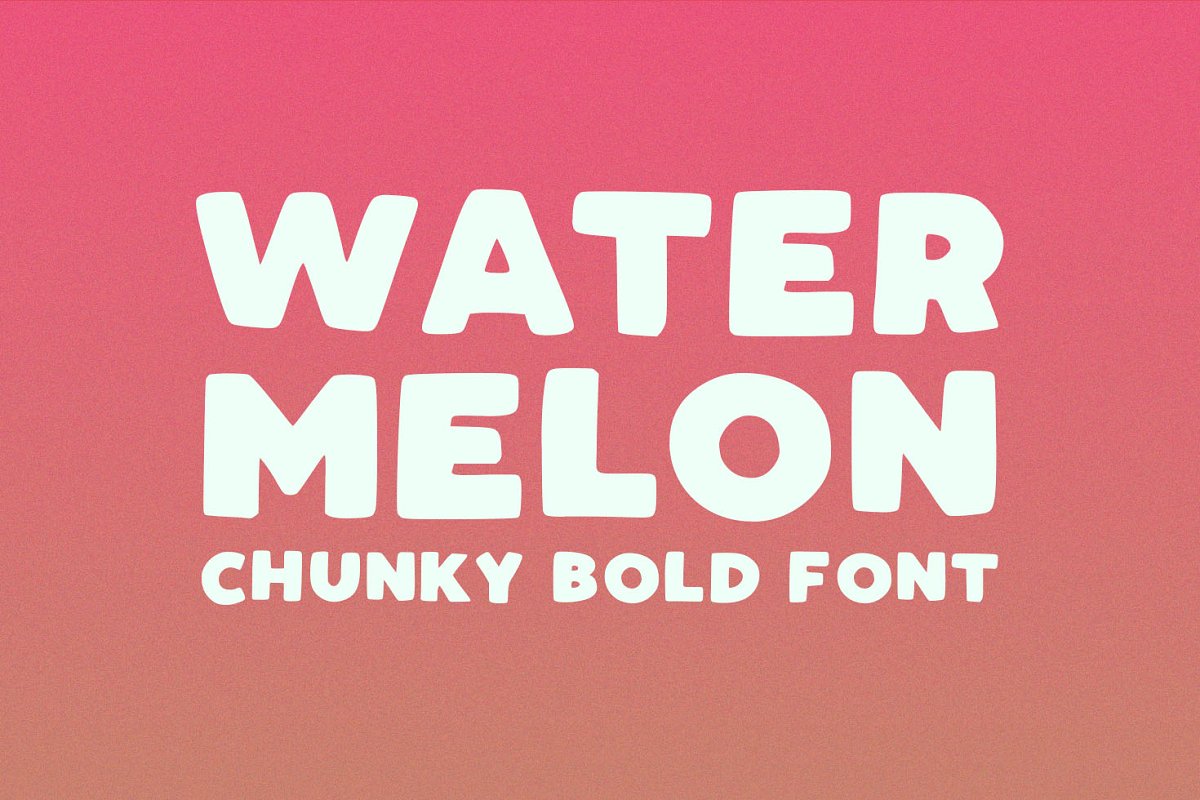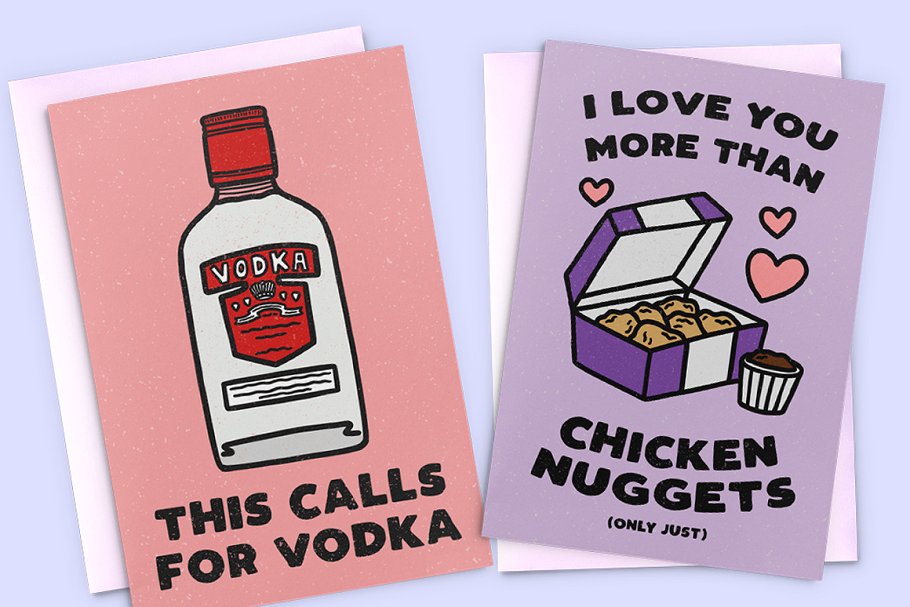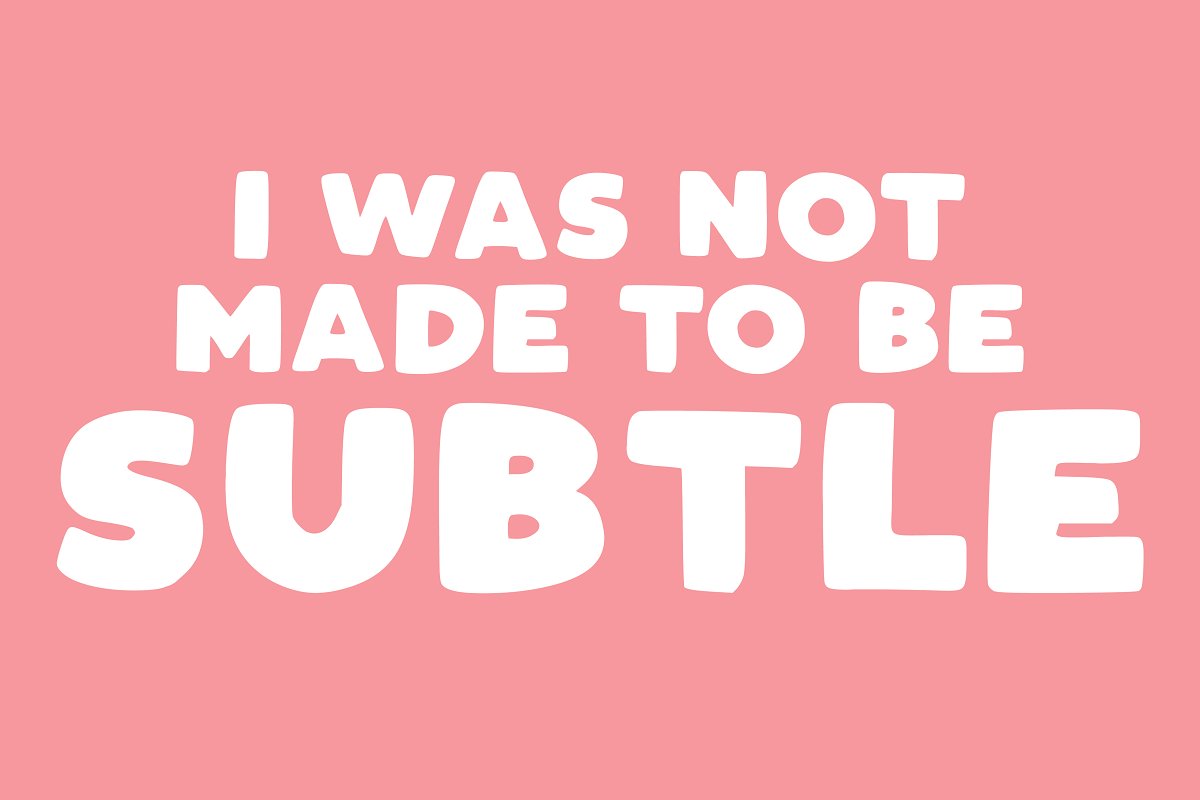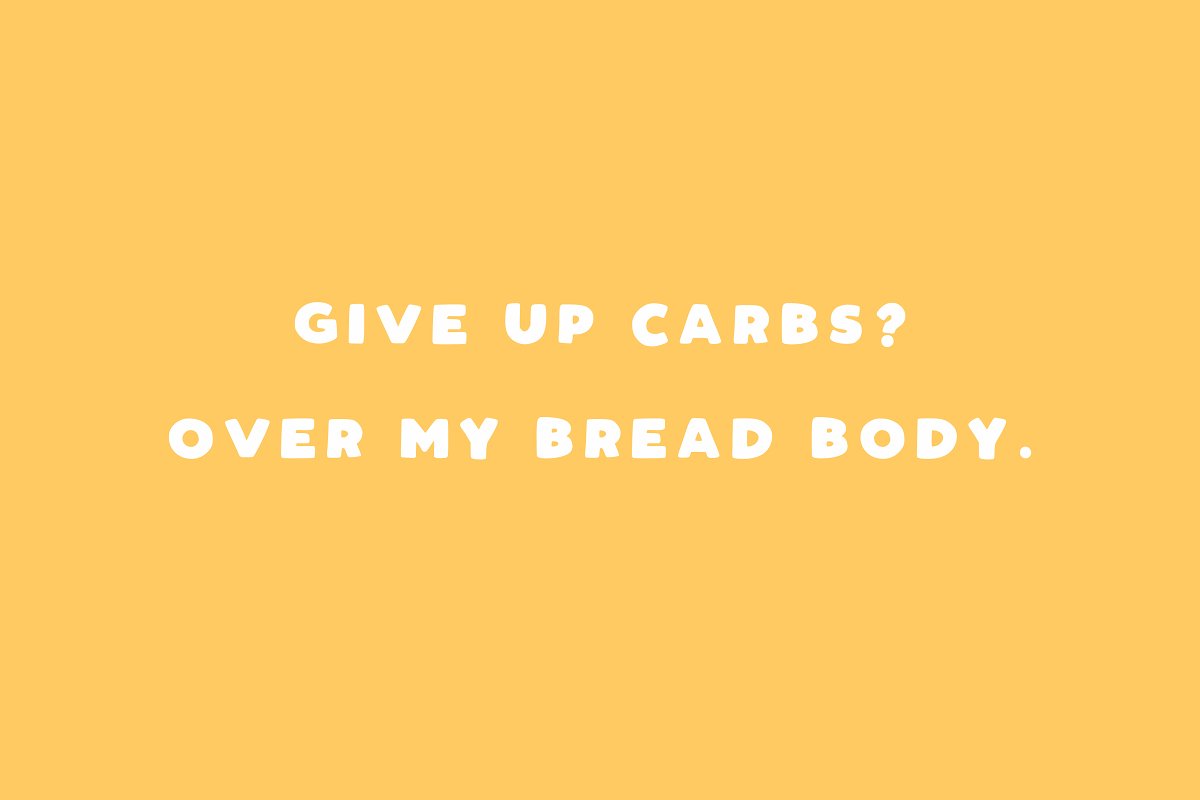
Watermelon A Chunky Bold Font Family Free Download
About the Watermelon A Chunky Bold Font
Watermelon is a chunky bold typeface perfect for any fun quirky design work! This font can be used for anything such as t-shirt designs, phone cases, greeting cards, invitations, mugs and so much more! Get creative!YOU WILL RECEIVE:OTF version of WatermelonTTF version of WatermelonWeb Font version of WatermelonNot sure how to install the font? https://creativemarket